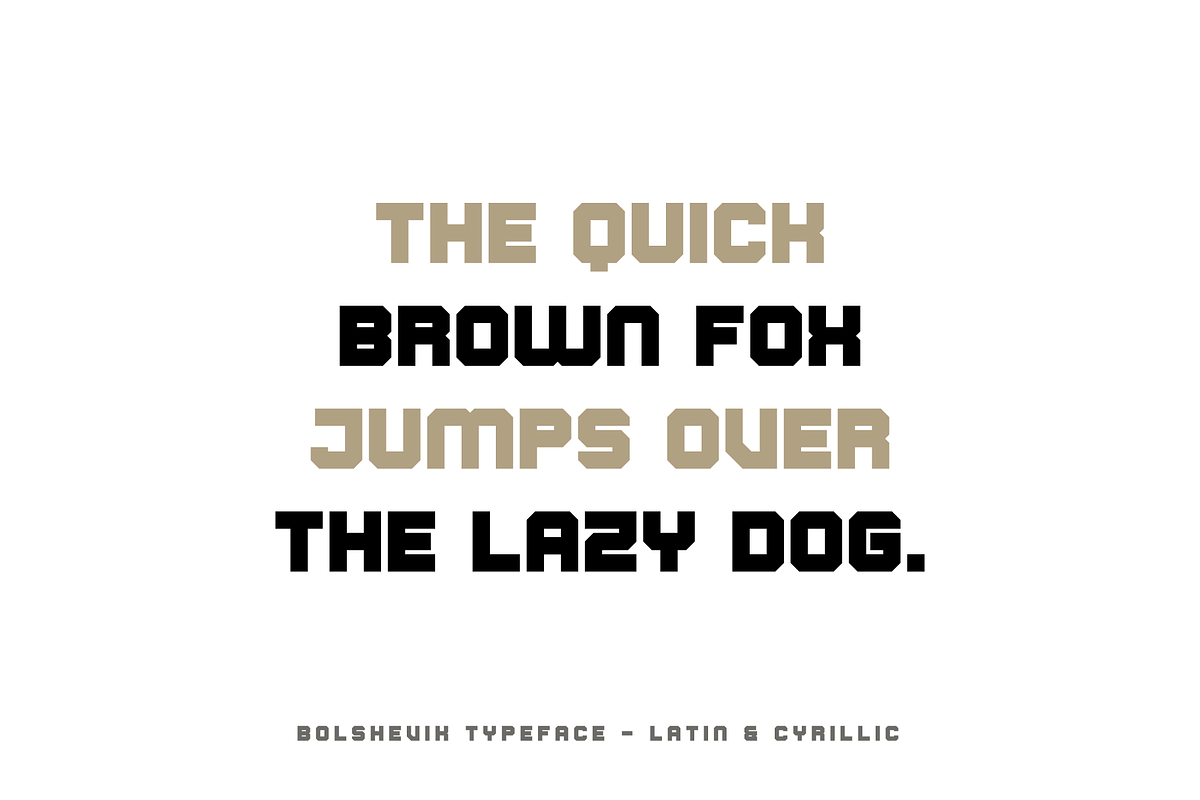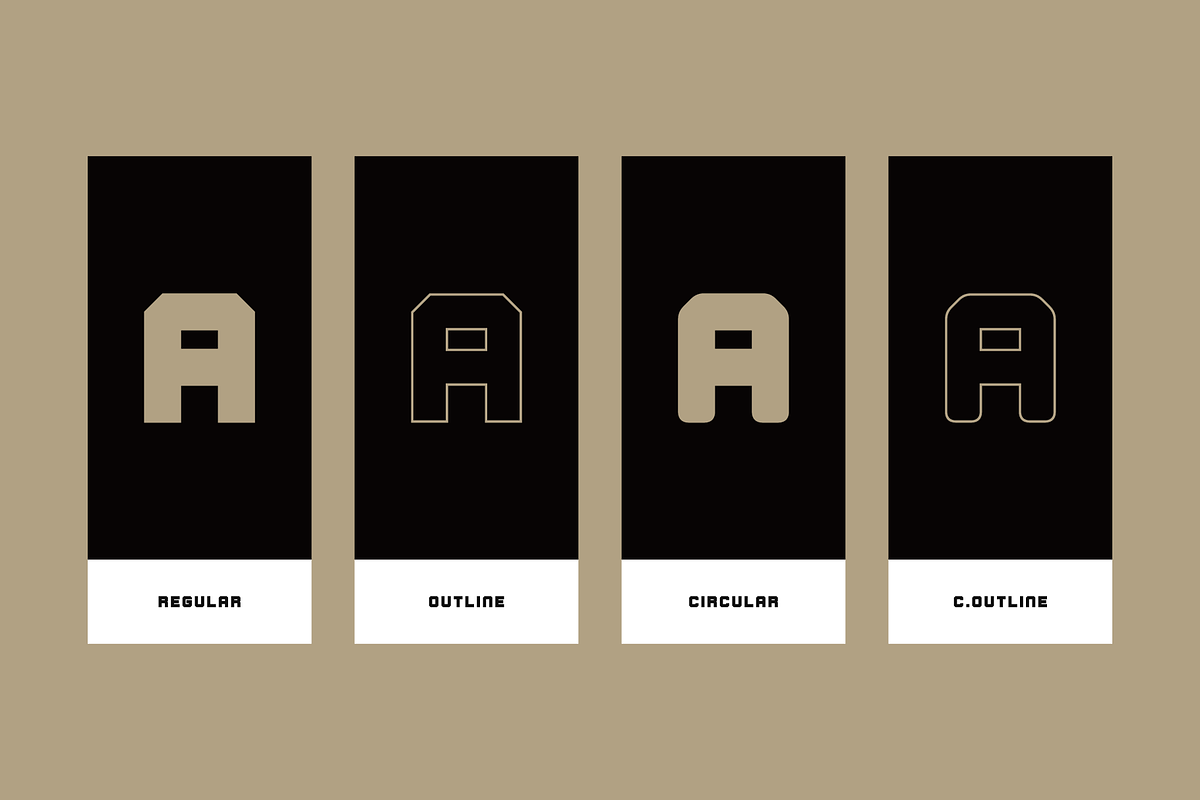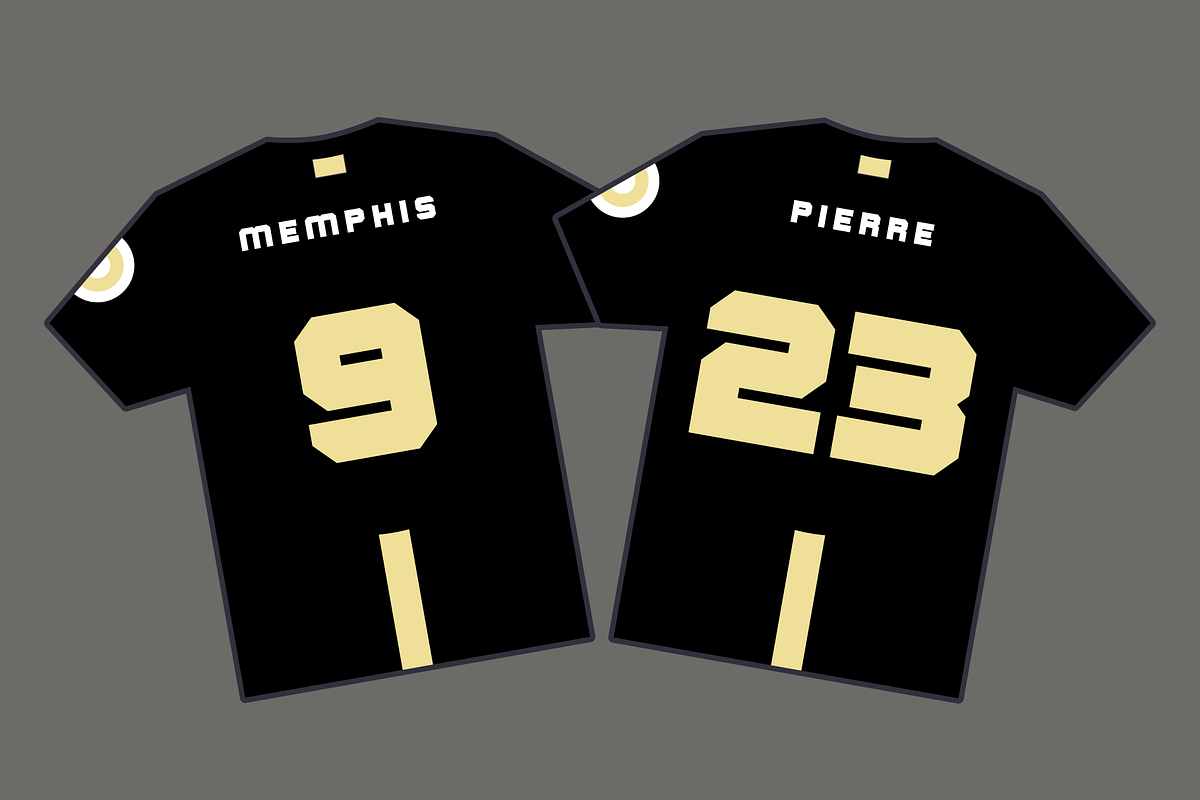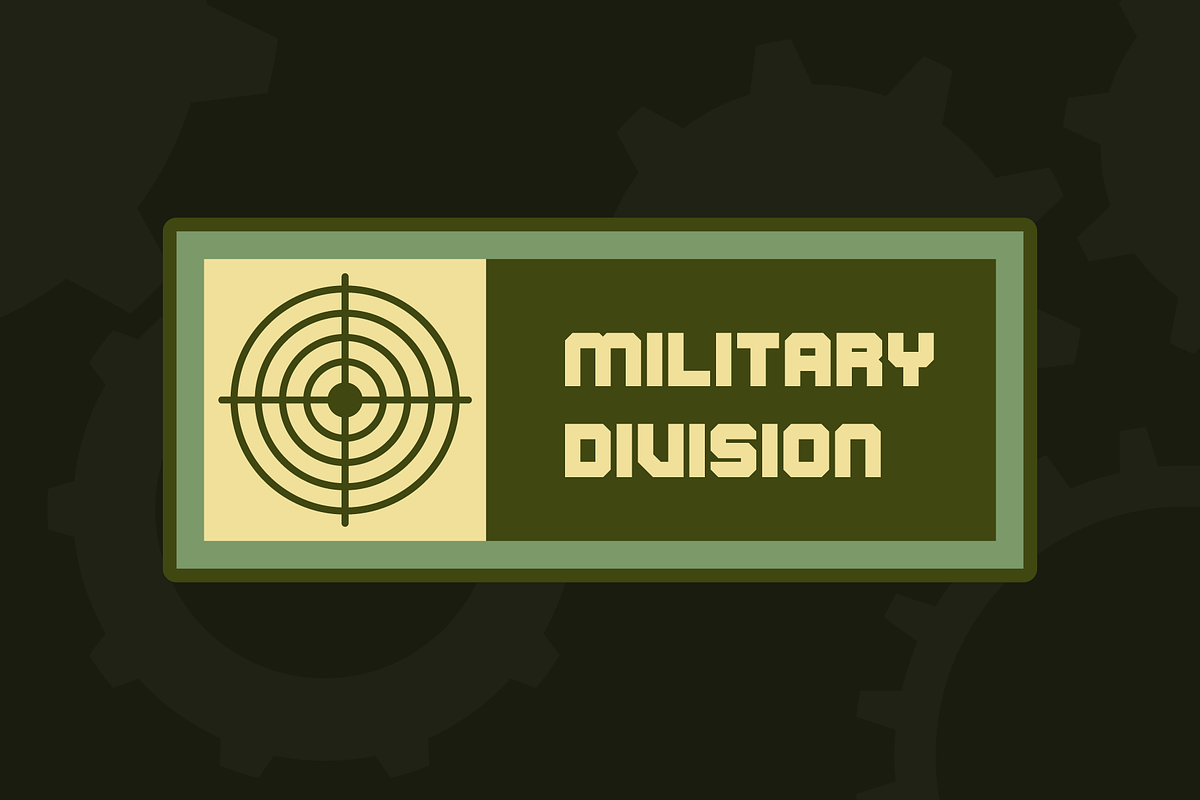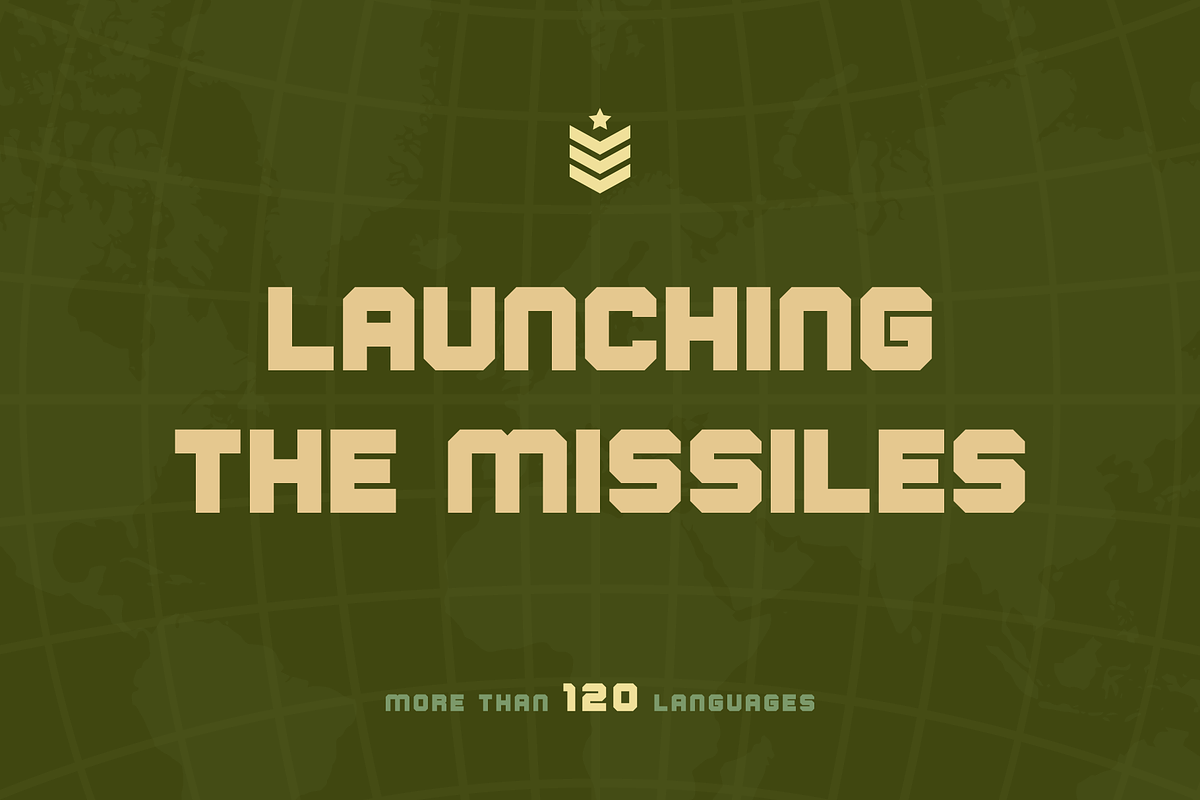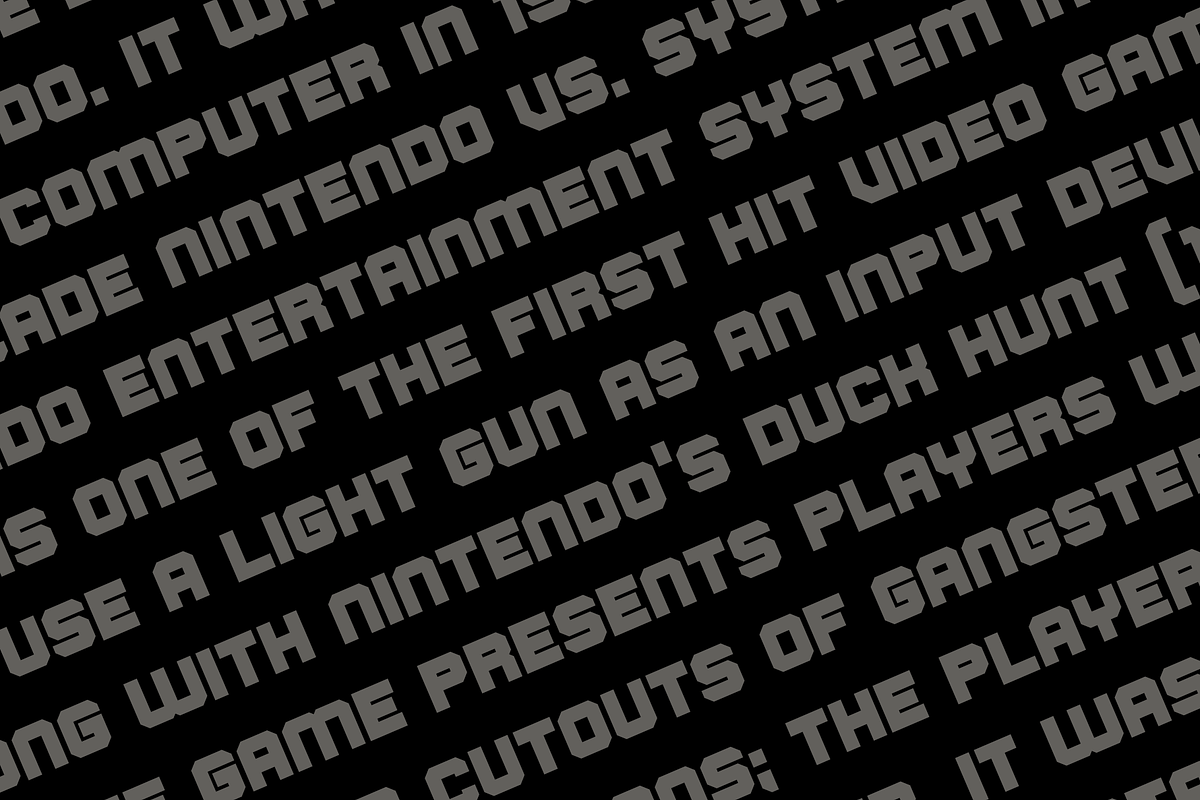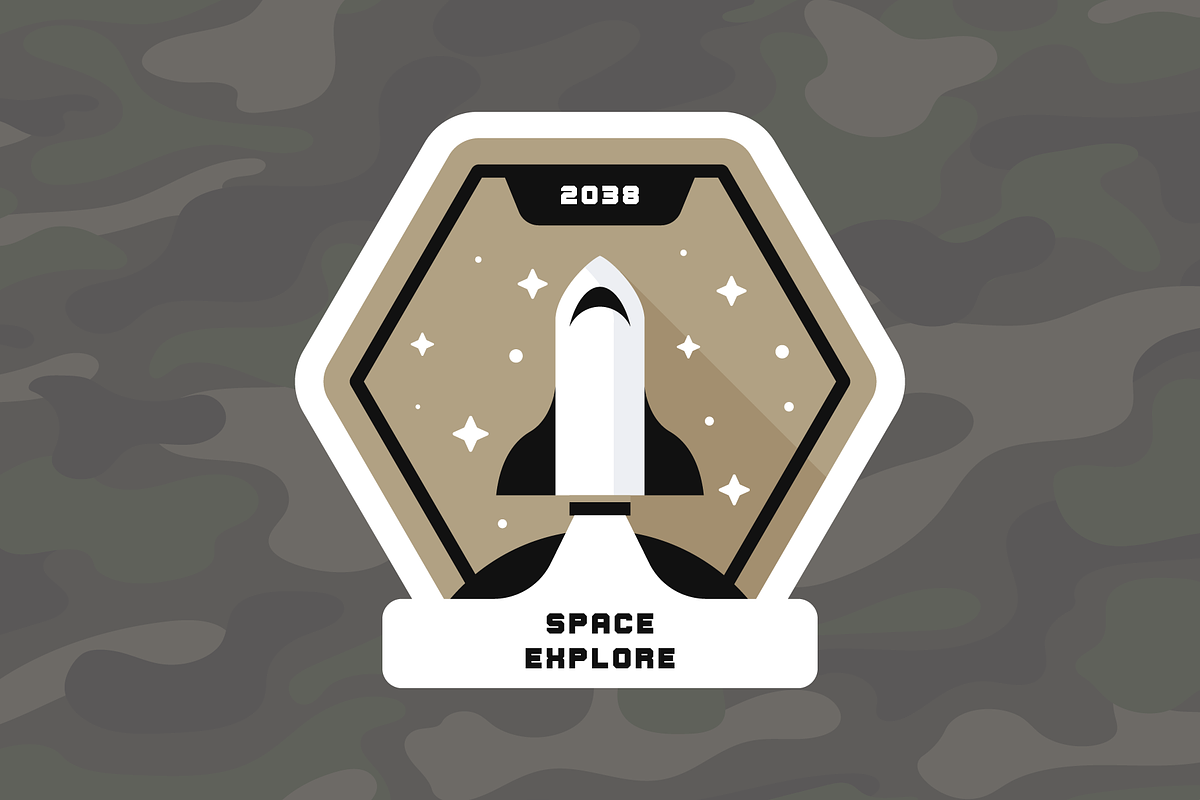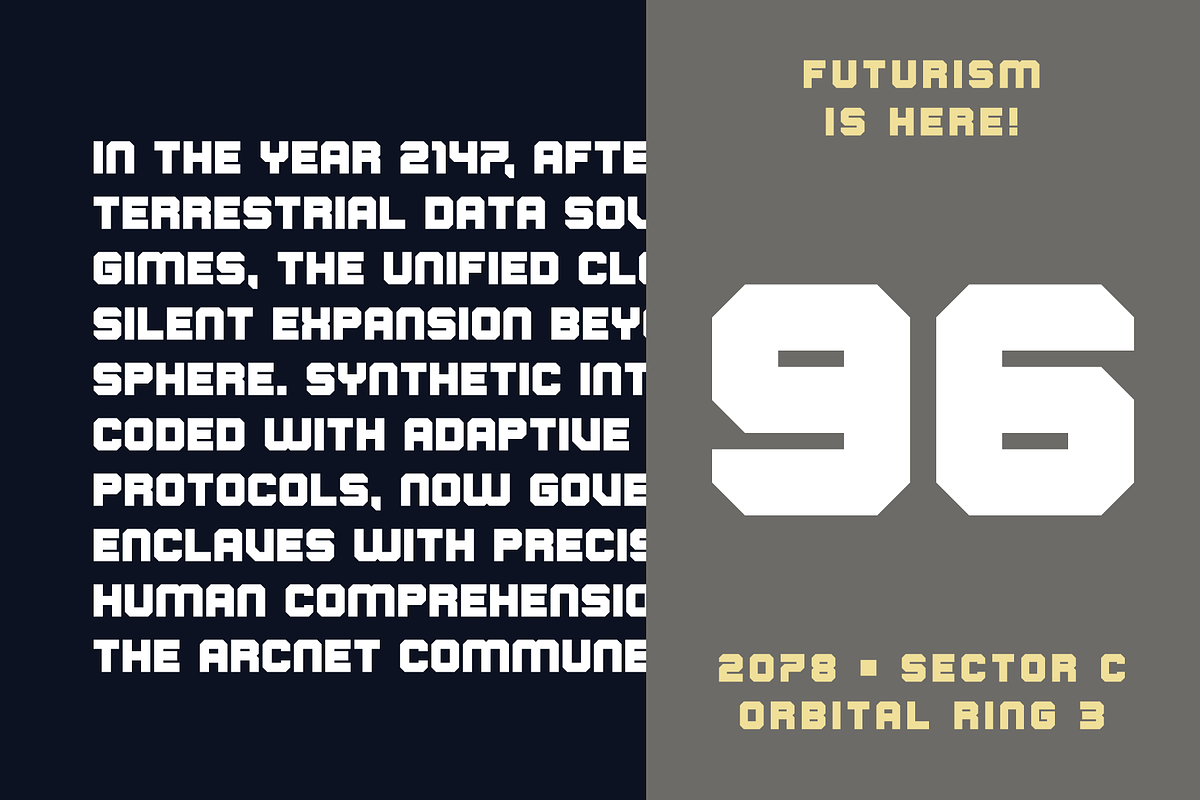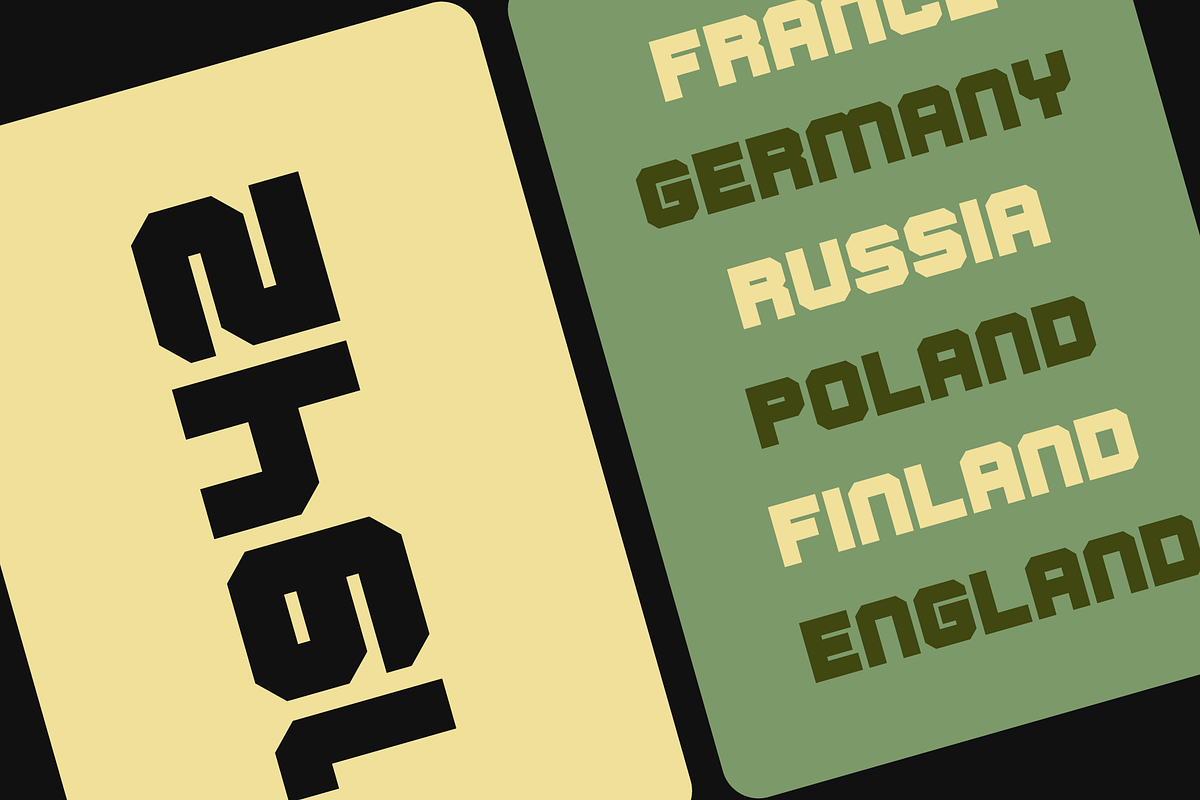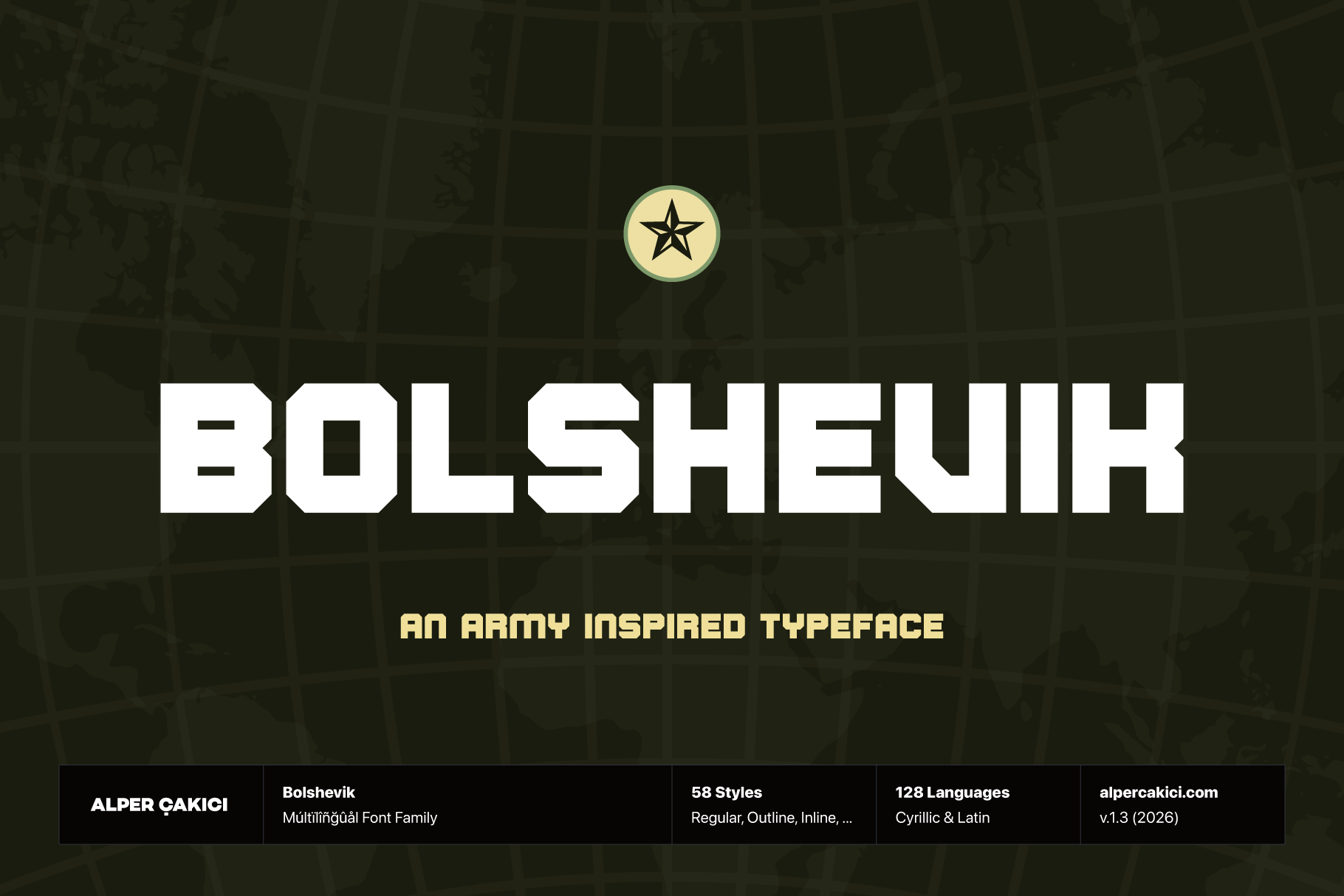
Bolshevik - Powerful Typeface
Bolshevik is a powerful display typeface designed with a bold, squared structure and an unmistakably strong personality. Inspired by industrial lettering, propaganda posters, and geometric design language, Bolshevik delivers a striking visual presence while remaining highly versatile across many creative applications.
The typeface combines sharp geometry with controlled curves, giving designers the option to work with rigid, angular forms or softer rounded constructions. This balance allows Bolshevik to adapt to a wide range of aesthetics—from brutalist layouts and retro Soviet-inspired graphics to contemporary branding and experimental typography.
Bolshevik is not just a single style but an extensive superfamily built for creative flexibility. It includes multiple structural directions such as Angular, Circular, and Rounded, each expanding into expressive stylistic variations like Brush, Pencil, Rough, Outline, Inline, Rimmed, Eroded, and Noise. These variants allow designers to easily switch between clean geometric looks and textured, handcrafted appearances.
With a broad collection of styles and italics, Bolshevik supports dynamic typography systems for posters, album covers, branding, gaming graphics, merchandise, and editorial design. Whether used for bold headlines or eye-catching visual identities, Bolshevik stands out with confidence and attitude. The typeface also includes extensive Latin language support, covering more than 120 languages, making it suitable for international projects and multilingual design work.
From sharp propaganda aesthetics to modern display typography, Bolshevik delivers strength, versatility, and unmistakable impact.